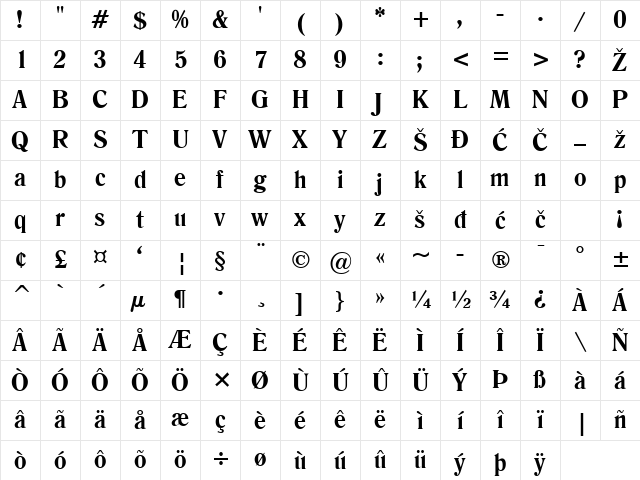
Romana is a composed and adaptable typeface that performs quietly and consistently across a wide range of design contexts. Its bold stroke weight gives it real presence on the page.